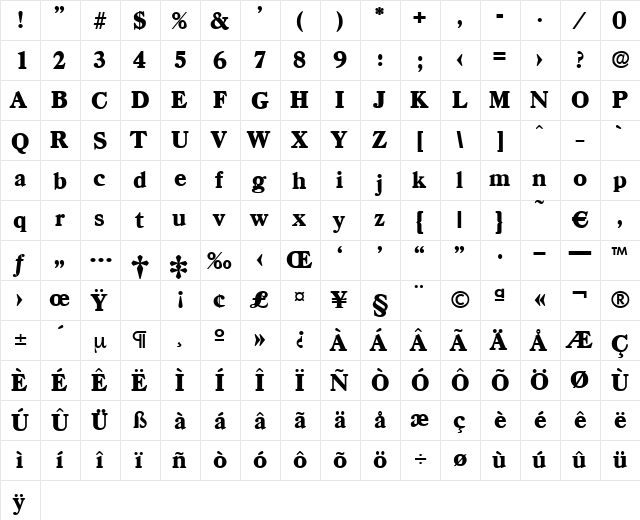
Casad-ExtraBold Regular
Design Context for Casad-ExtraBold Typeface
Casad-ExtraBold takes a measured approach to typography — its balanced proportions and neutral character make it a reliable workhorse for both digital and print work. The heavy weight commands attention and anchors typographic hierarchies.